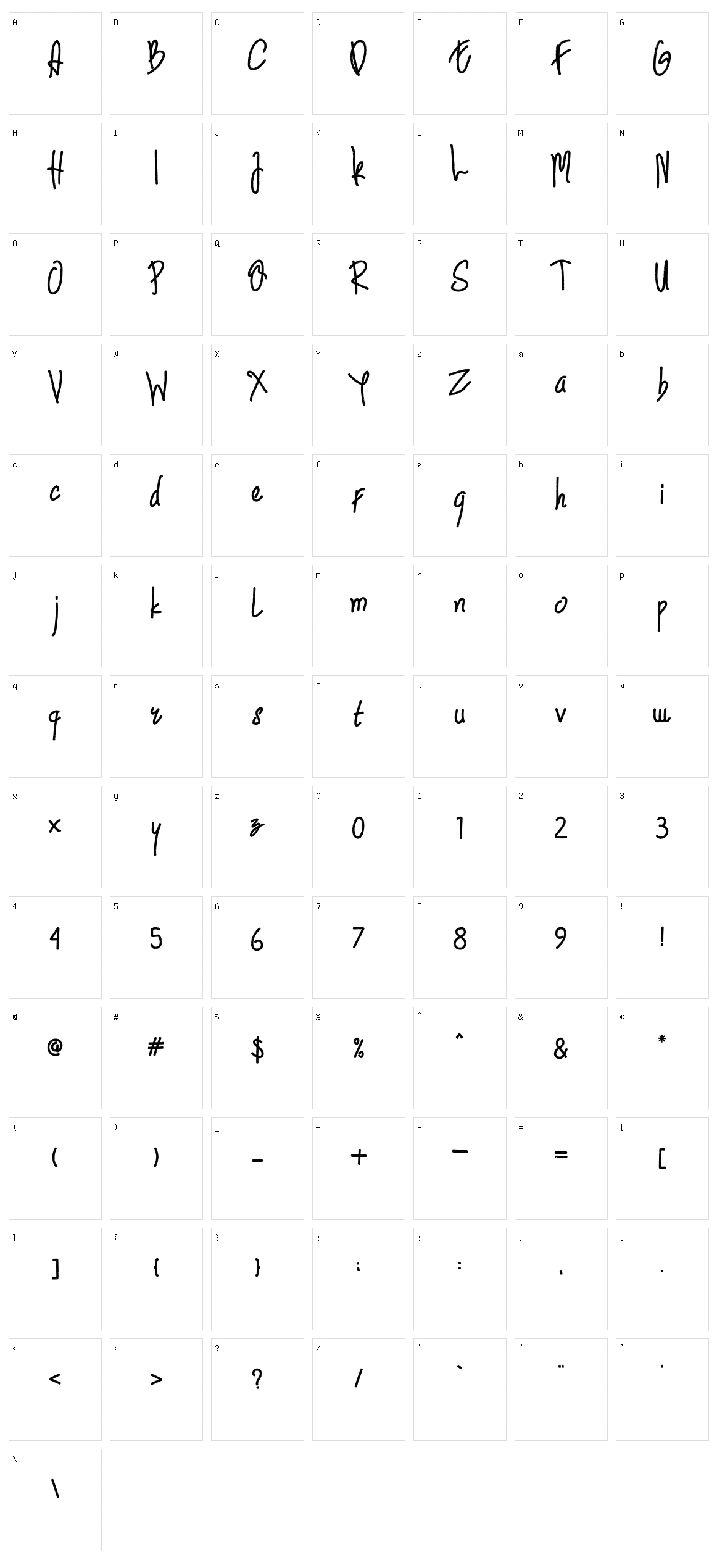
Rowdy typeface font suitable to create any branding, magazine, logo, signature, product packaging, invitation, qoutes, t-shirt, label poster etc.
UPPERCASE
lowercase
ALTERNATIVE UPPERCASE
Number & Symbol
International Glyps